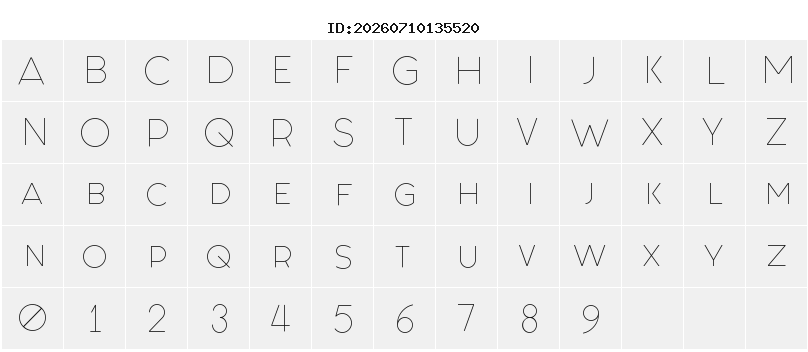
Fashion Fetish Small Caps Preview
• Font Name: Fashion Fetish Small Caps
• Full Font Name: Fashion Fetish Small Caps
• Version: Version 1.00 September 30, 2016, initial release
• Designer: Levi Szekeres
• Manufacturer: Levi Szekeres
• Description: Fashion Fetish Font
About Fashion Fetish Small Caps.ttf
Fashion Fetish Small Caps.ttf is a modern, elegant sans-serif font designed for ultimate readability and visual harmony. Perfect for branding, headlines, web design, and print materials.